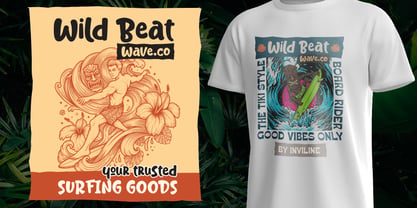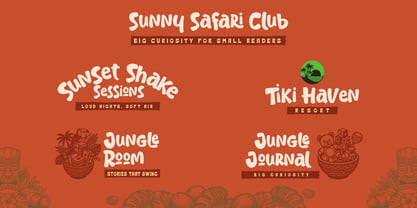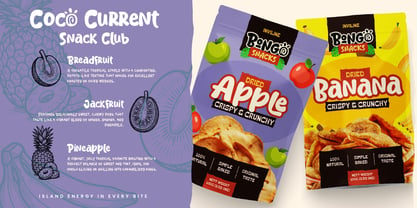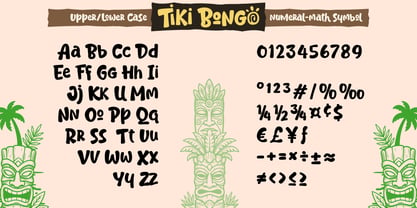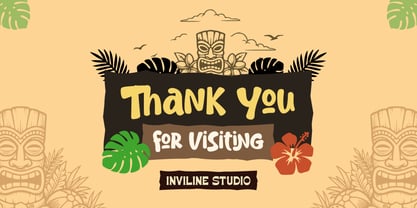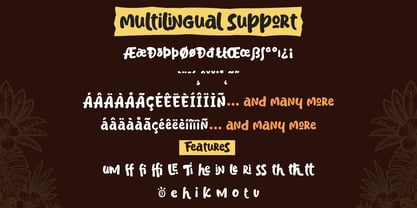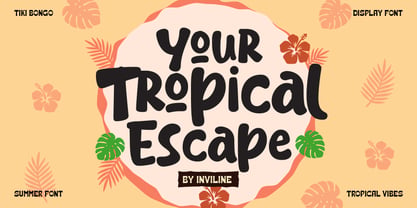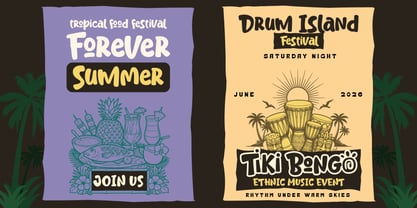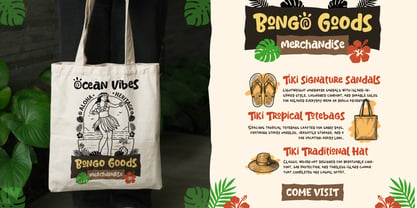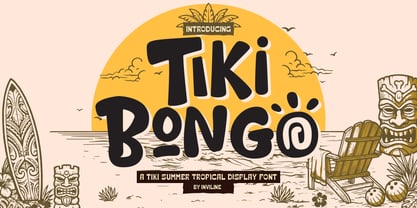
Tiki Bongo
by Inviline
The Tiki Bongo Font Family was designed by Virgiawan Listanto and published by Inviline. Tiki Bongo contains 1 styles. More about this family
Tiki Bongo is a bold tropical display typeface inspired by island culture, beach festivals, and vibrant summer atmospheres. Its expressive, handcrafted letterforms feature soft curves and organic proportions, creating a playful yet impactful visual presence. Designed for high-impact headlines and branding applications, Tiki Bongo delivers a warm and energetic tone that feels both relaxed and distinctive. The intentionally irregular character shapes add personality and a natural rhythm, enhancing creative compositions. This typeface is perfect for projects that evoke fun, leisure, and tropical escapism—making it an excellent choice for food and beverage branding, event promotions, packaging design, and lifestyle-oriented visuals. With various weights and OpenType features, Tiki Bongo is versatile for both print and digital media, ensuring your designs stand out with a unique flair.
Designers: Virgiawan Listanto
Foundry: Inviline